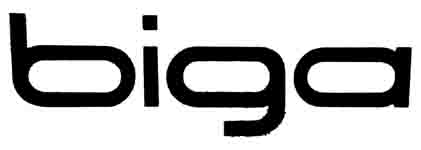
cheeky little font
this ones got me stumped !!! and it looks so easy tia
neuropol was my first thought & i've been thru what font is.. & what the font with no luck but thanks for helping so far
Just make your own ... if you haven't found it by now ... you can probably make that entire typeface in about 20 minutes to an hour. it is just a box with a completely rounded edges, and the following letters would use that box in some shape or form ... abcdegmnopqrsuy